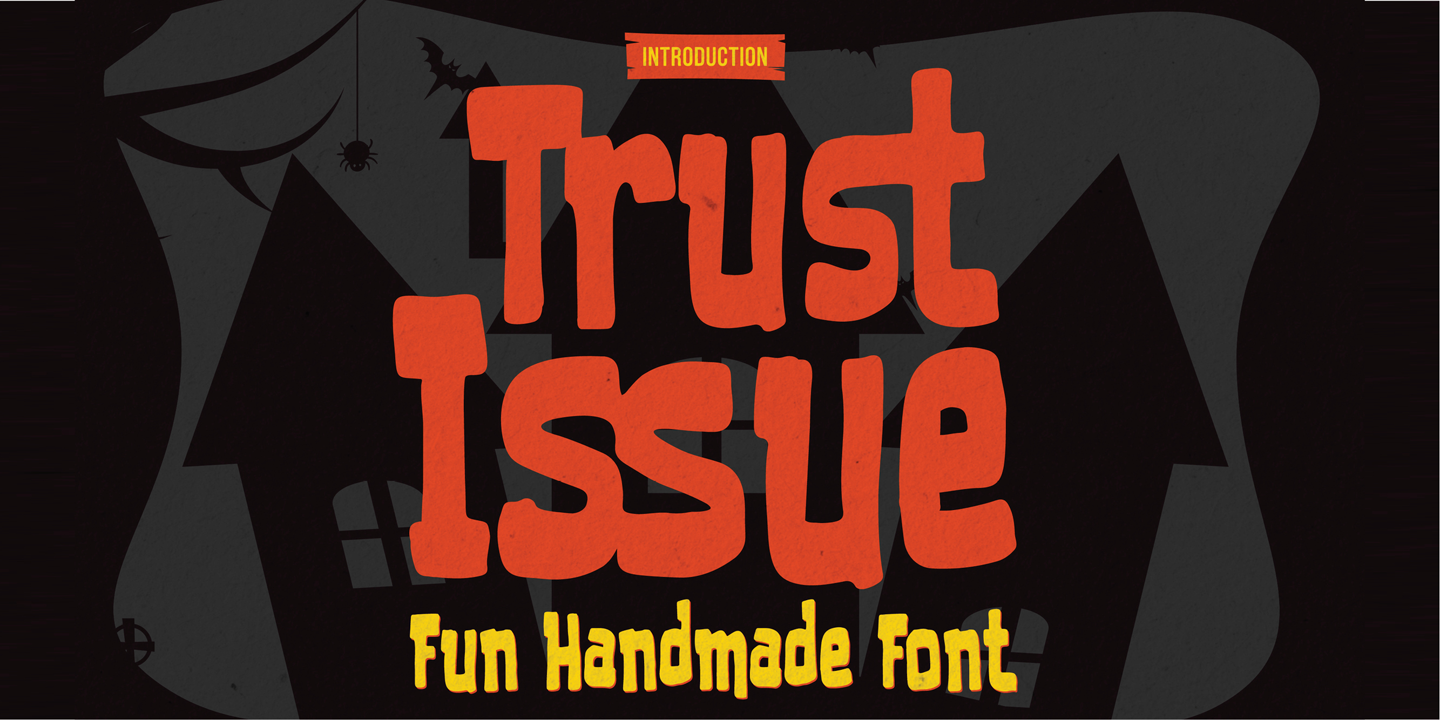
Trust Issue Font is perfect for psychological thriller designs, introspective memoir covers, mental health awareness campaigns, vulnerability-focused branding, emotional storytelling projects, therapeutic communication materials, honest relationship counseling, authentic personal growth content, and any project requiring typography with emotional vulnerability and psychological depth aesthetics.
What makes Trust Issue Font exciting is its emotional vulnerability that captures the complex psychology and raw honesty of human relationships with letterforms that embody the fragile nature of trust and the courageous act of opening oneself to potential hurt in pursuit of genuine connection. This deeply human typeface reflects the delicate balance between self-protection and authentic intimacy with slightly unstable construction that mirrors the uncertain terrain of emotional risk-taking and the profound courage required for meaningful human relationships. The font's vulnerable character and psychological sophistication make it perfect for projects exploring emotional authenticity, mental health awareness, and the transformative power of acknowledging and working through trust challenges.
The Trust Issue Font family includes regular weight with complete uppercase and lowercase alphabets, numerals, punctuation marks, and emotionally expressive elements. The font maintains consistent psychological authenticity throughout all letterforms while ensuring adequate readability for both introspective headlines and vulnerable text applications in therapeutic and personal development contexts.
Whether you're designing for mental health organizations, creating vulnerability-focused content, or developing authentic relationship branding with psychological depth aesthetics, Trust Issue Font Free Download brings unmatched emotional authenticity and psychological sophistication to your projects. This exceptional typeface transforms ordinary text into honest expressions of human vulnerability that celebrate the courage to acknowledge trust challenges and the healing power of authentic emotional communication. The font's vulnerable character makes it ideal for therapists, relationship coaches, and authentic personal development brands. Download this remarkable font today and bring the honest complexity of trust dynamics to your design projects with authentic psychological sophistication and emotionally vulnerable excellence.